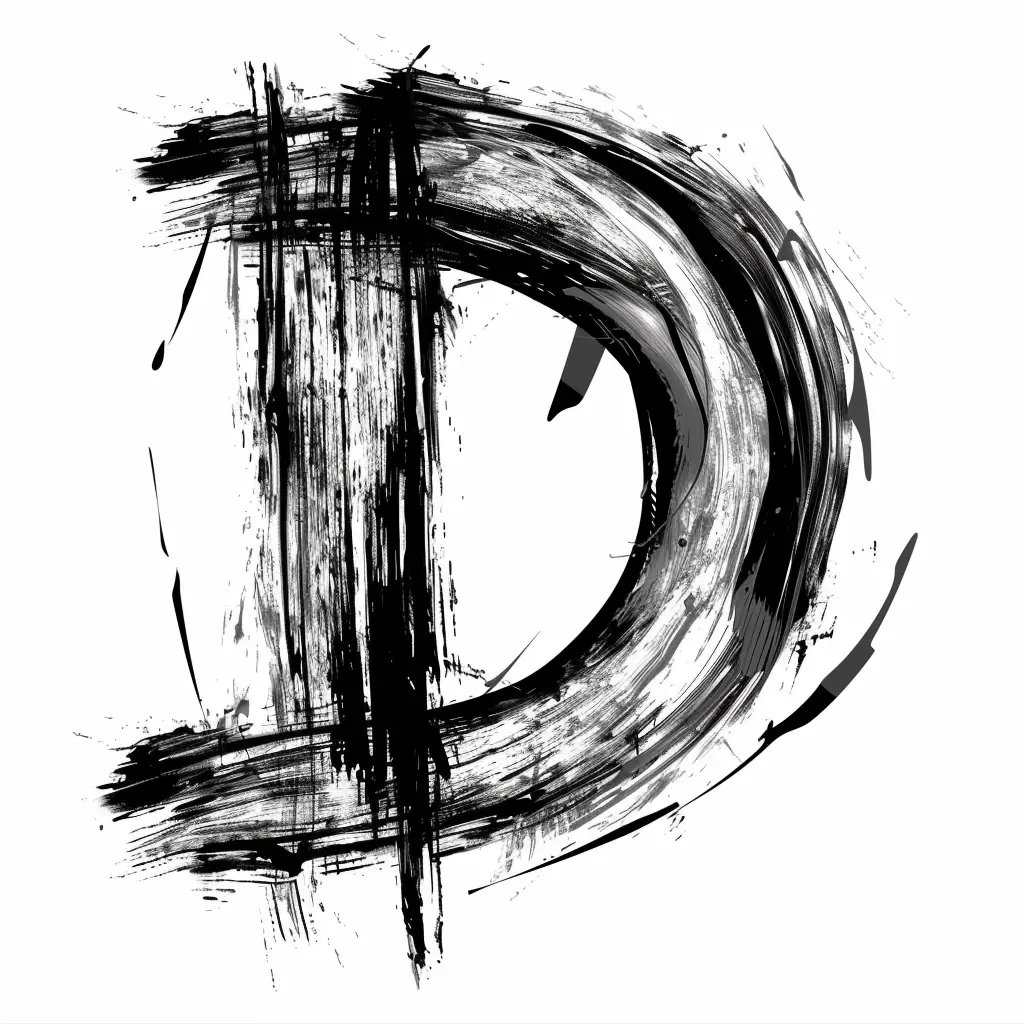
This image features a stylized, abstract representation of the letter "D," rendered in a bold, expressive brushstroke style. The design uses stark black and white, with thick, textured strokes creating a dynamic, almost chaotic visual effect, including splatters and layered lines that emphasize movement and texture. The circular form of the "D" is prominent, contrasted by vertical and diagonal brushstrokes that add depth and a raw, artistic feel.